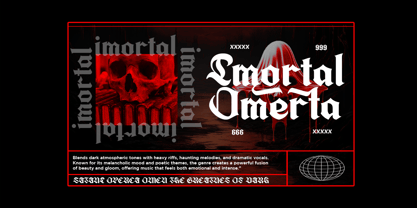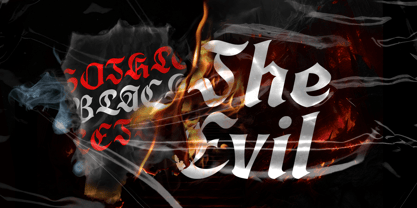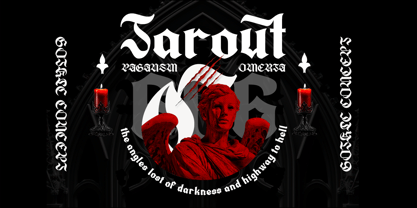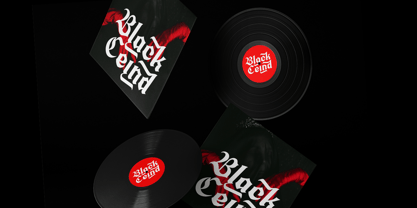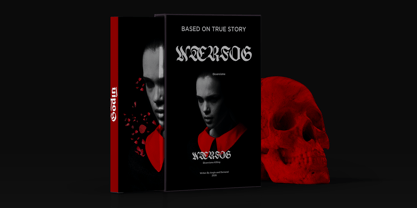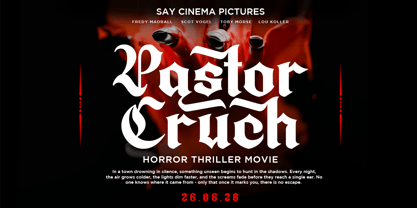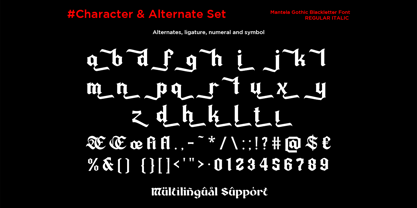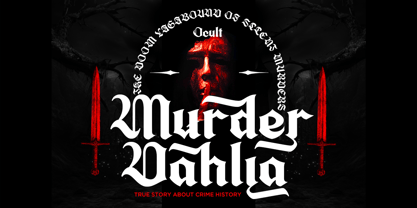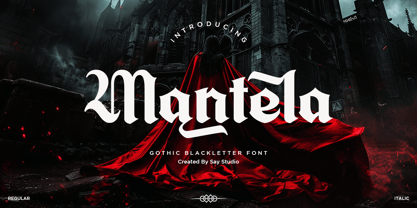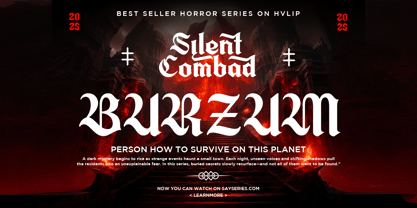
Mantela
The Mantela Font Family was designed by Mussyayin and published by Say Studio. Mantela contains 2 styles and family package options. More about this family
Mantela is a bold Gothic Blackletter font crafted to bring dark elegance and medieval character into modern creative projects. Inspired by classic European calligraphy, occult symbolism, horror cinema, and vintage metal aesthetics, Mantela combines sharp angular strokes with dramatic curves to create a commanding visual presence. Every letter is carefully designed to deliver authentic blackletter personality while remaining highly readable for contemporary branding and editorial use.
Perfect for horror movie posters, heavy metal album covers, gothic fashion branding, Halloween promotions, fantasy game titles, medieval book covers, tattoo studios, luxury logos, packaging, YouTube thumbnails, streaming series artwork, merchandise, apparel, posters, and premium editorial layouts. Whether you're designing an occult-inspired identity or creating cinematic typography, Mantela instantly adds mystery, power, and timeless craftsmanship.
Mantela is an excellent choice for designers seeking a premium Gothic display font that stands out across both print and digital media.
• Regular and Italic
• Stylistic Alternates
• Uppercase and Lowercase
• Number, Symbol, and Punctuation
• Multi Language Support